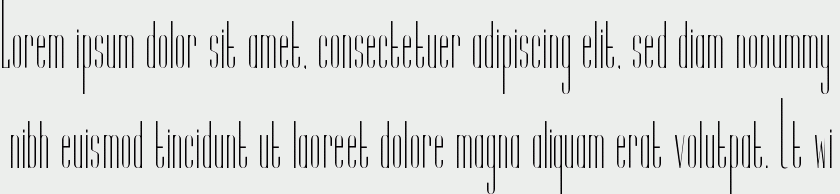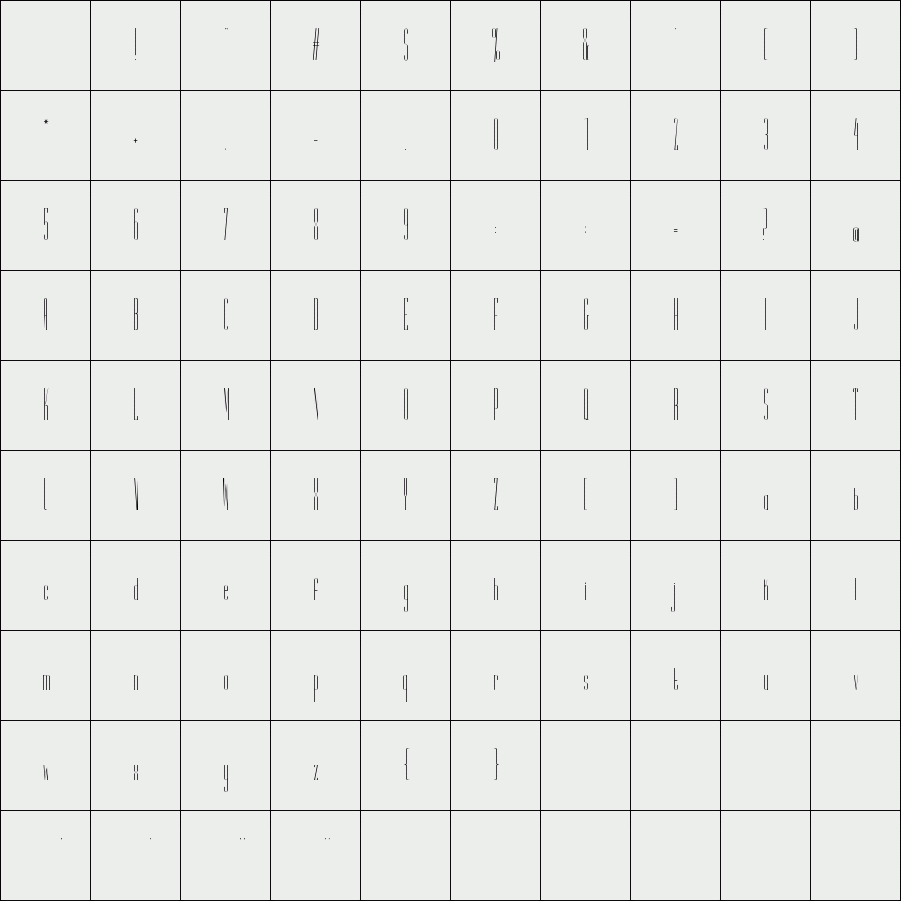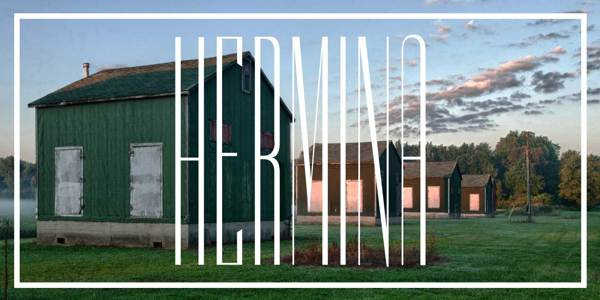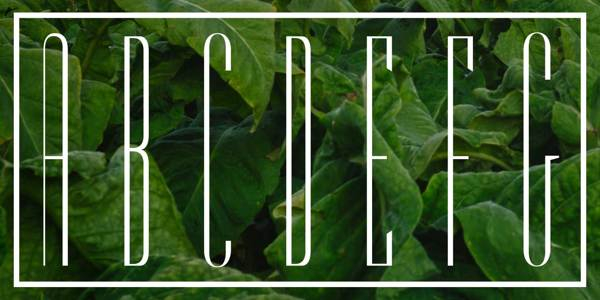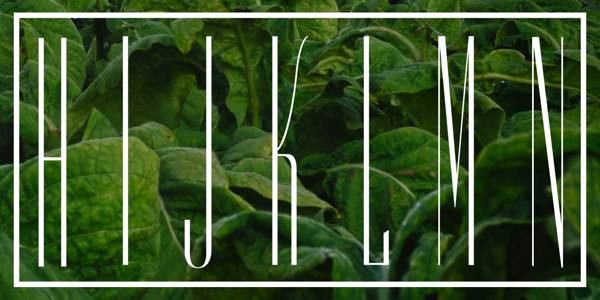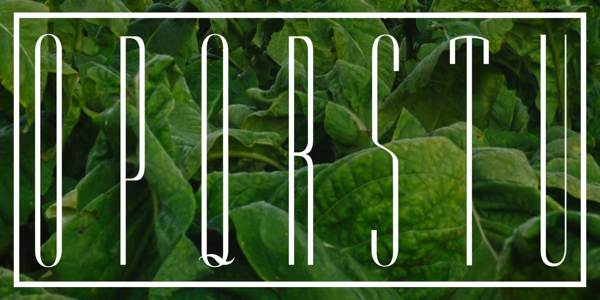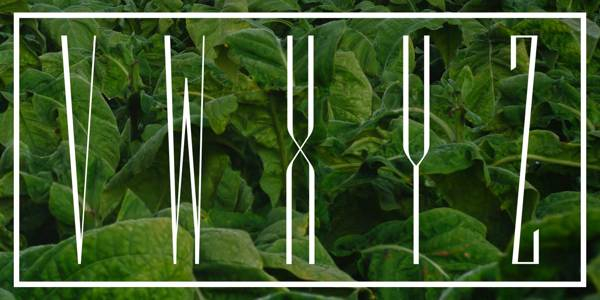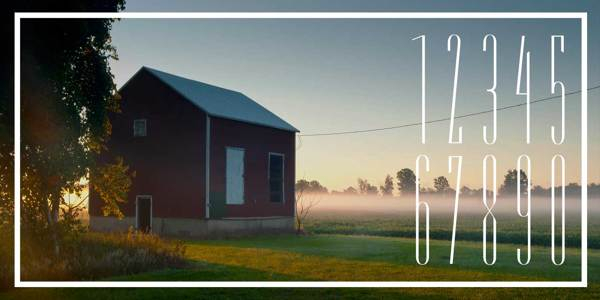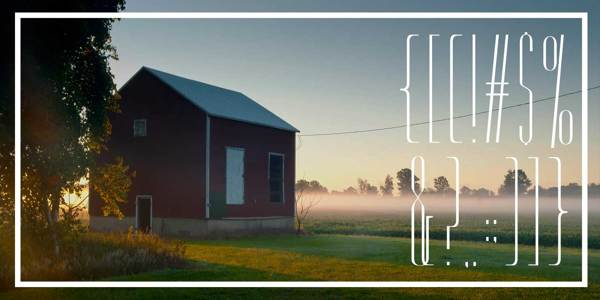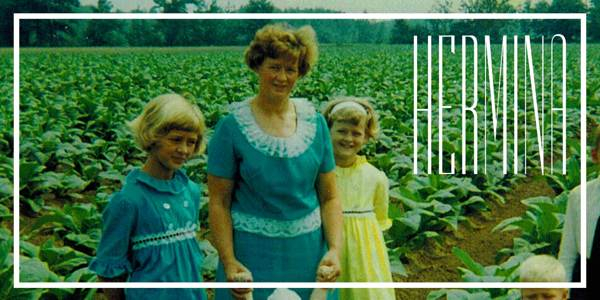
Hermina
Inspired by J.J. Herman’s unreleased serif typeface, Hermina is a more structured sans serif rendition of the original, suitable for logos, large copy, mastheads, and more. The type showcase recalls the period of the J.J. Herman as well as Madison’s own grandmother, Hermina, after whom the typeface was named. Type specimens were rolled into faux cigarettes and arranged in a gold-painted and branded tobacco tin.